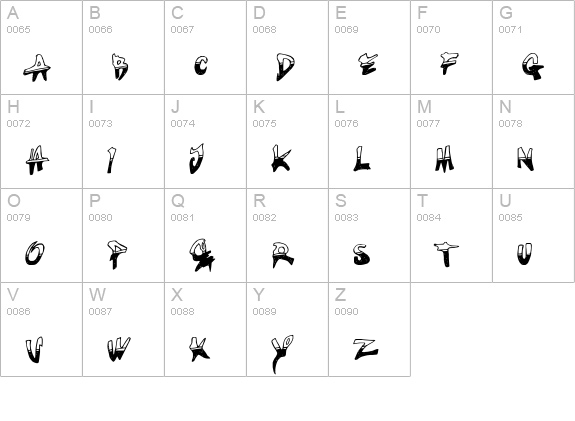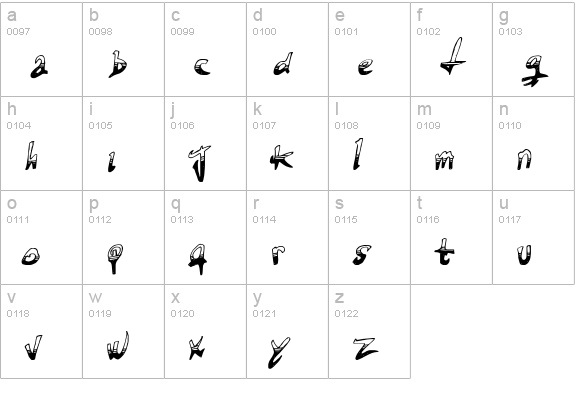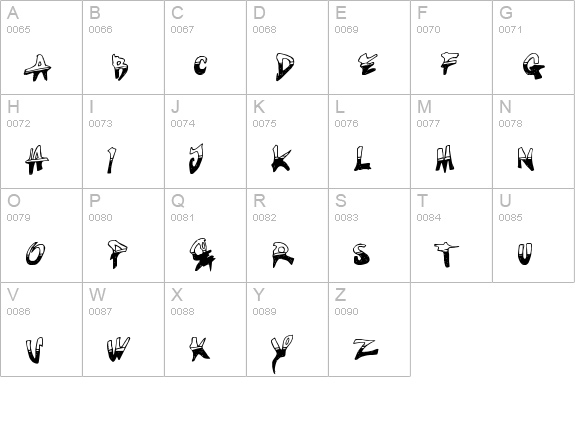
Introducing the TIRED TERRORIST font, a captivating and bold typeface that will make your designs truly unforgettable. This one-of-a-kind font combines edgy and energetic elements, creating a unique visual experience that is sure to leave a lasting impression. TIRED TERRORIST is a versatile font that can be used for a wide range of design projects. Whether you're creating eye-catching posters, impactful social media graphics, or captivating logos, this font will bring an extra touch of creativity and dynamism to your work. What sets TIRED TERRORIST apart is its eclectic mix of sharp angles and bold lines, giving it a strong and rebellious personality. Each character exudes a sense of energy and urgency, making it perfect for designs that demand attention and make a statement. But what truly sets TIRED TERRORIST apart is that it is freely available to download at FontsMarket.com. You heard that right – this exceptional font can be yours without any cost. We believe that creativity should be accessible to all, and that's why we're thrilled to offer TIRED TERRORIST as a free font for designers, artists, and enthusiasts alike. So, don't miss out on the opportunity to elevate your designs with the captivating charm of TIRED TERRORIST. Download it now from FontsMarket.com and unleash your imagination with this powerful and free font. With TIRED TERRORIST as your creative ally, the possibilities are endless.